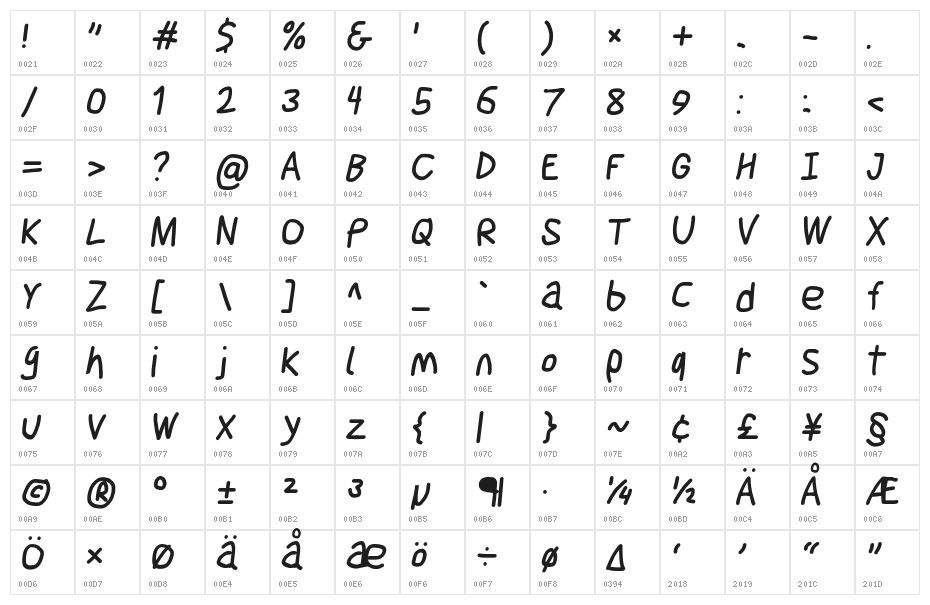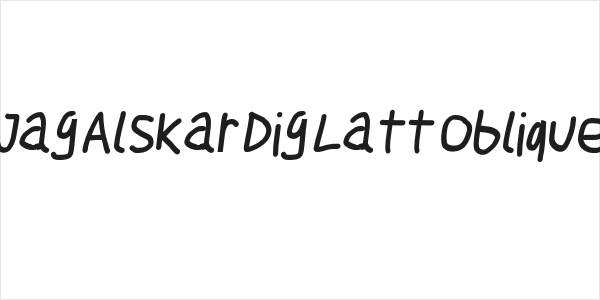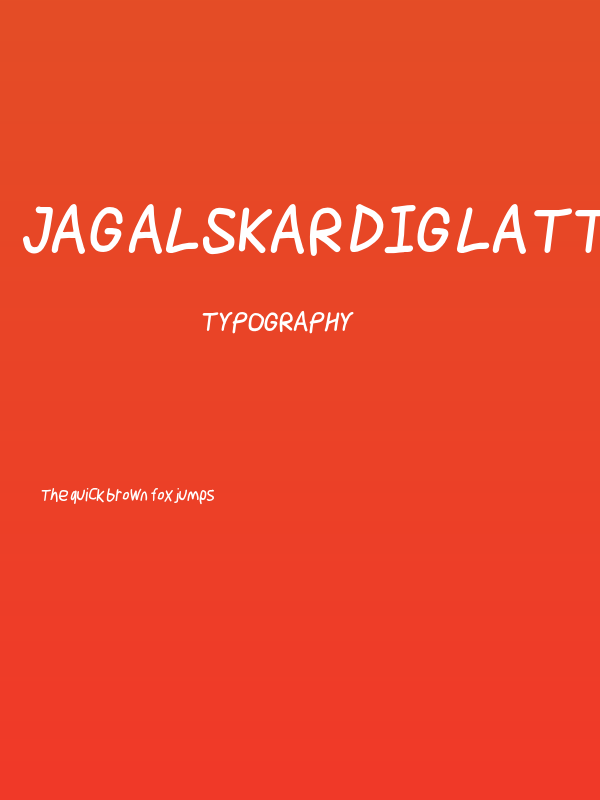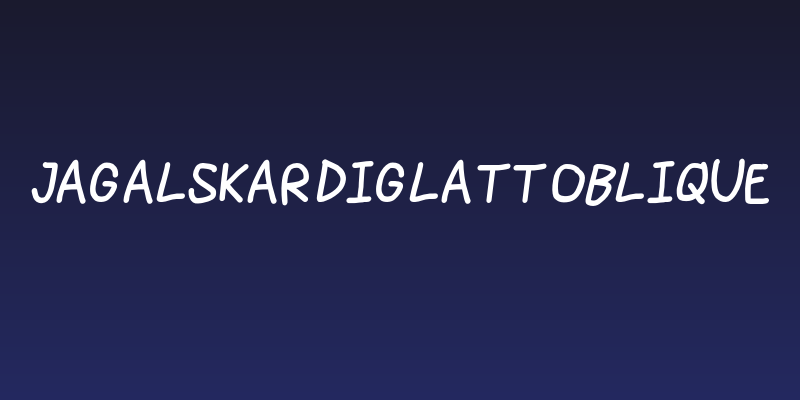
Jag Alskar Dig Latt Oblique Font
Jag Alskar Dig Latt Oblique Description
This font features a playful and casual handwritten style, characterized by its slightly oblique and rounded letterforms. The strokes are consistent in weight, giving it a uniform appearance, while the slight slant adds a dynamic and informal touch. The letters are well-spaced, ensuring readability, and the overall design exudes a friendly and approachable vibe. The numerals and special characters maintain the same playful aesthetic, making it suitable for a variety of creative projects.
| Proposed Projects | Ideal for greeting cards, children's books, casual branding, and social media graphics. |